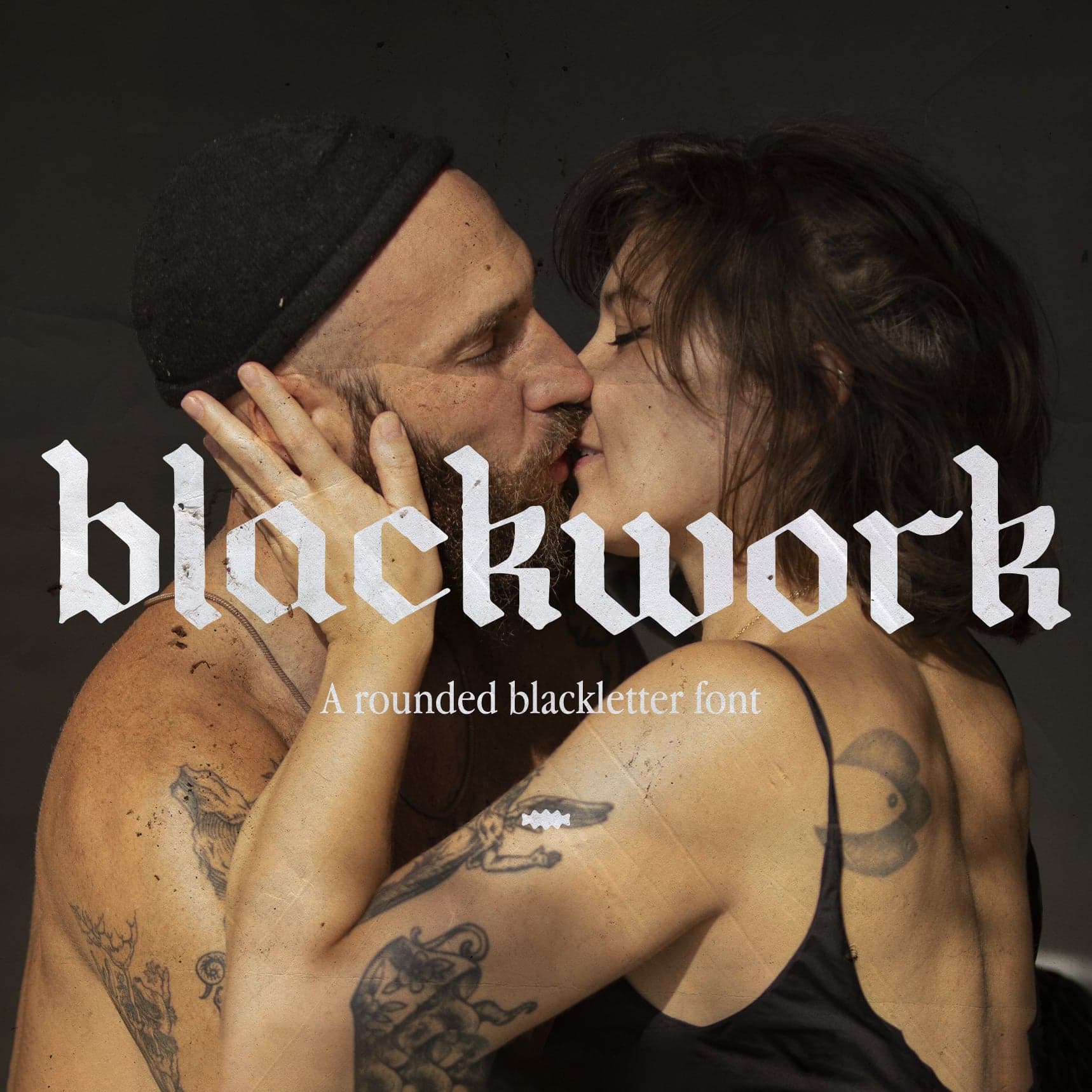
<p>Introducing Blackwork, the bold and beautiful blackletter font that will take your designs to the next level. With its rounded look and natural, handwritten feel, this font is perfect for those who want to make a statement with their typography.</p> <p>Blackwork is a versatile font that can be used for a wide range of design projects, from logos and branding to invitations and social media graphics. Its bold and striking appearance commands attention, while its rounded edges give it a soft and approachable feel.</p> <p>But don't let its natural, handwritten look fool you - Blackwork is a professionally crafted font that is both legible and easy to read. Its carefully designed letters and balanced spacing ensure that your message comes through loud and clear, no matter how you use it.</p> <p>Whether you're a professional designer or just starting out, Blackwork is the perfect font to add to your toolkit. It's easy to use, versatile, and will give your designs that extra touch of style and sophistication.</p> <p>So don't wait - try Blackwork today and elevate your designs to the next level.</p> <p>What’s inside:</p> <ul> <li>Blackwork.otf</li> <li>Blackwork.ttf</li> <li>Blackwork.woff2</li> </ul>